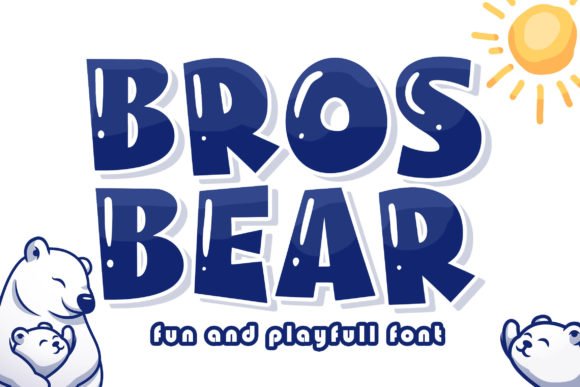
Introduction to Bros Bear Font
Bros Bear is a cute and cartoon-like display font.
It embodies playfulness and authenticity and is the perfect choice for any children activity or school project Add this chunky lettered font to your designs and notice how it makes them come alive.